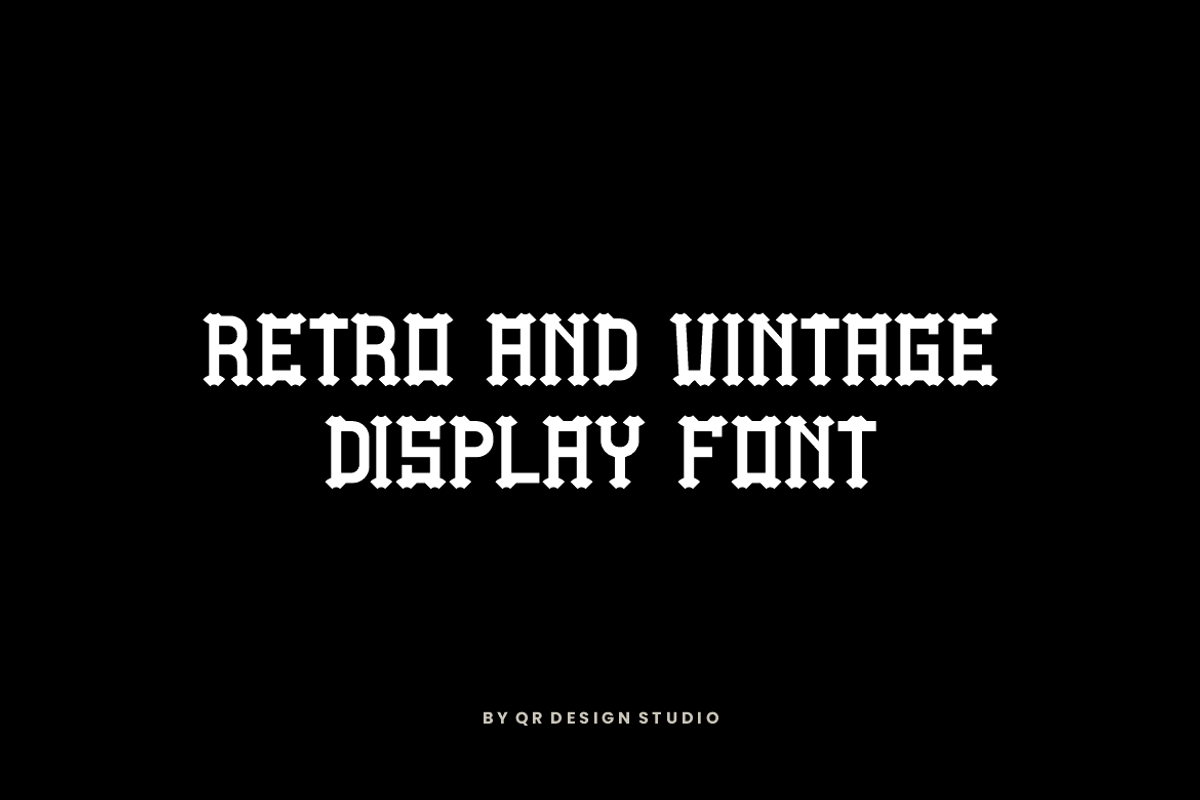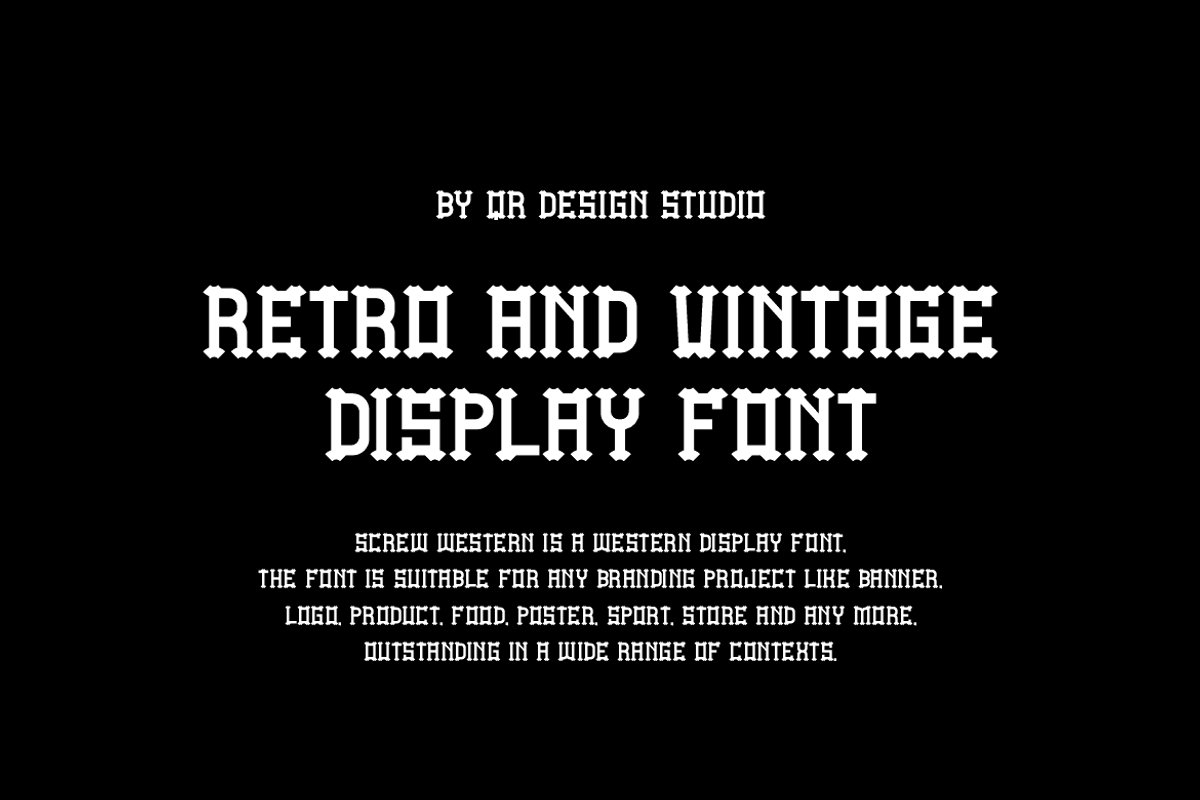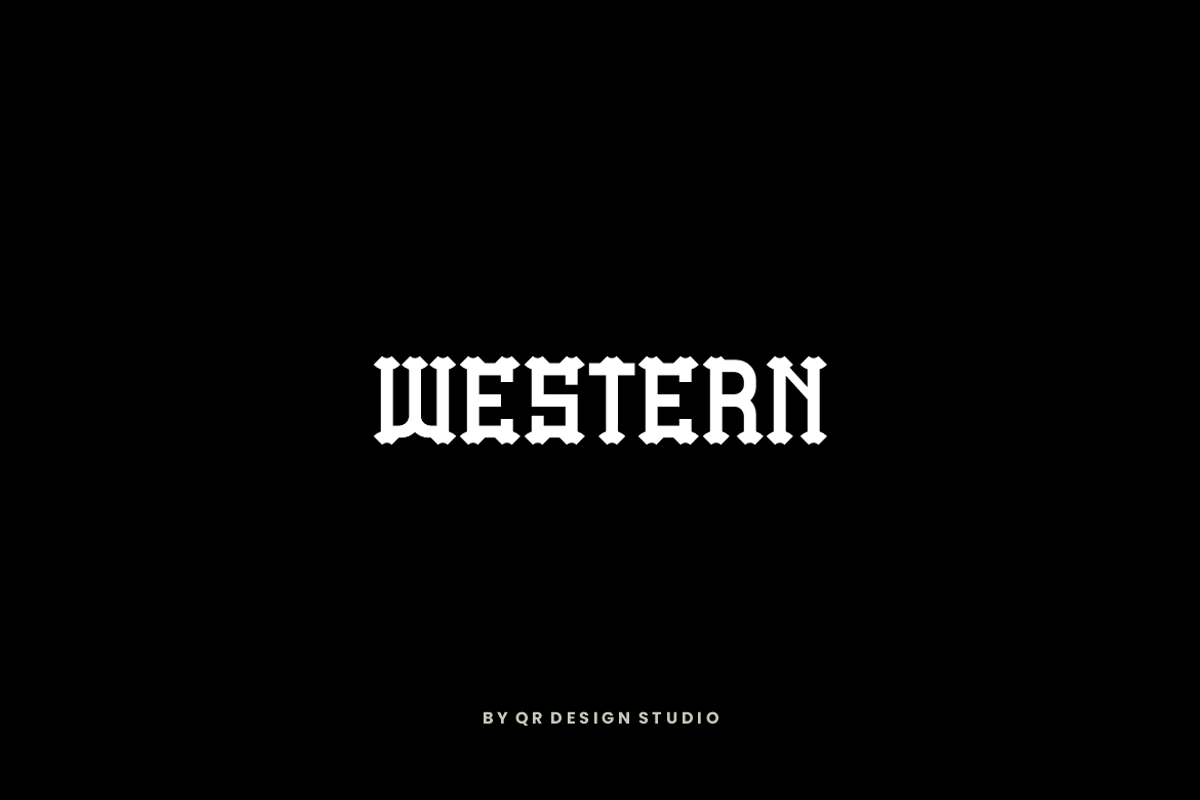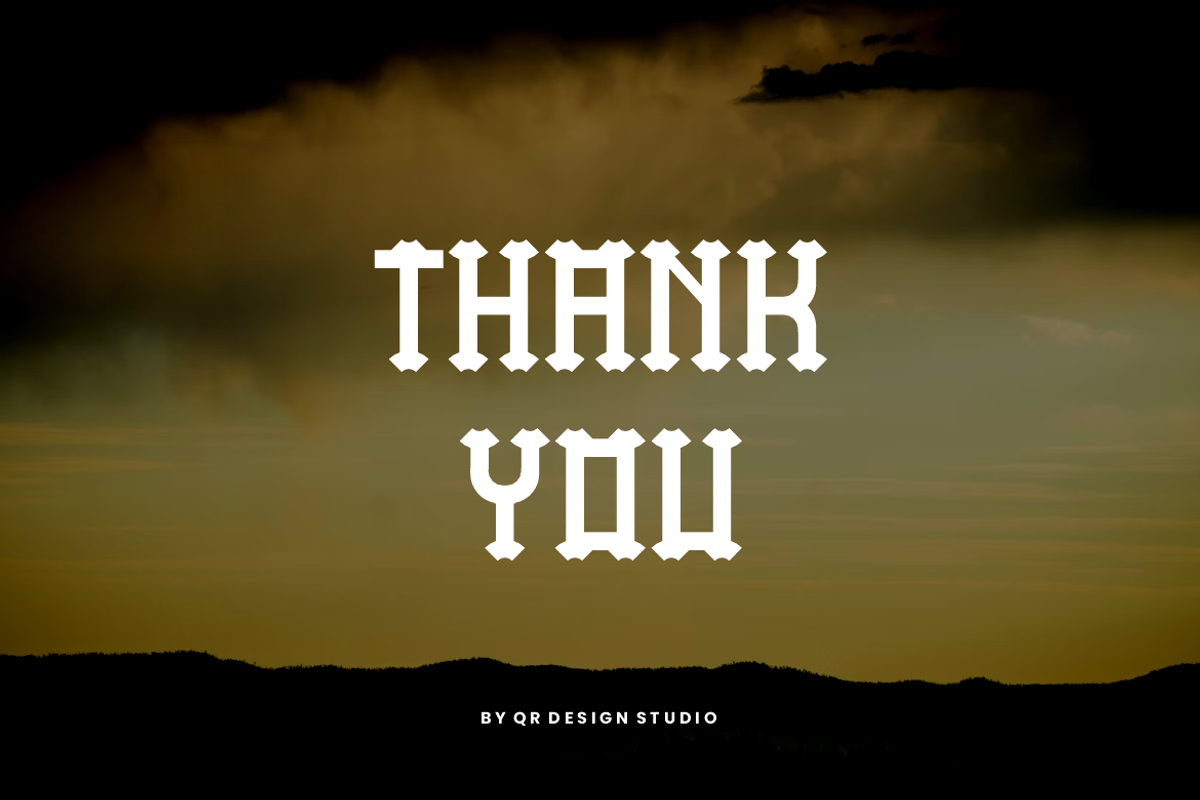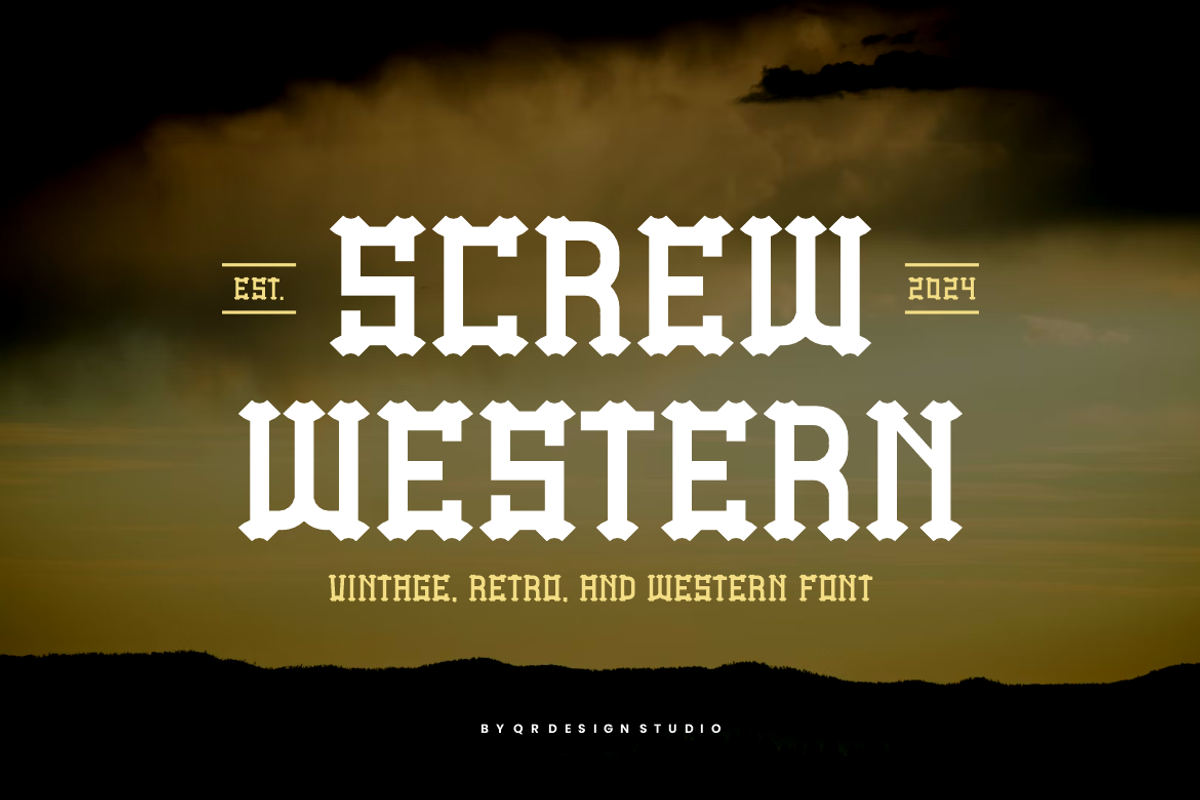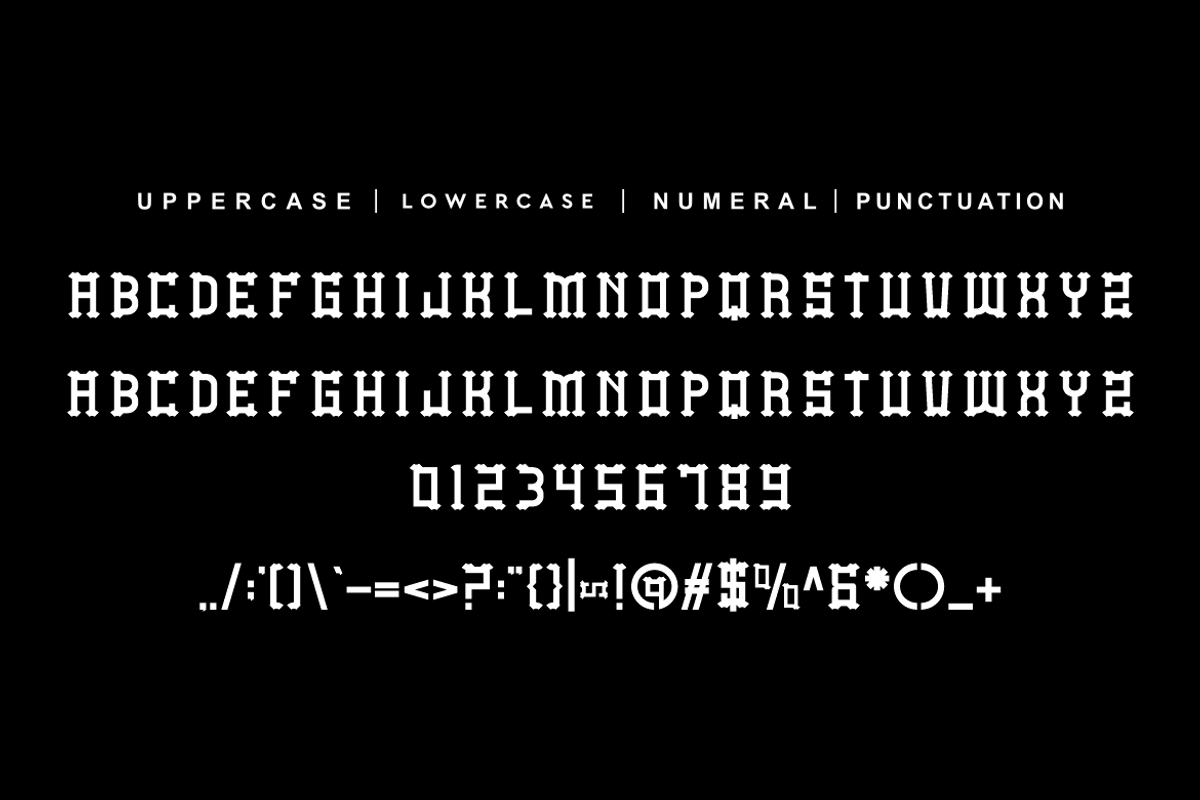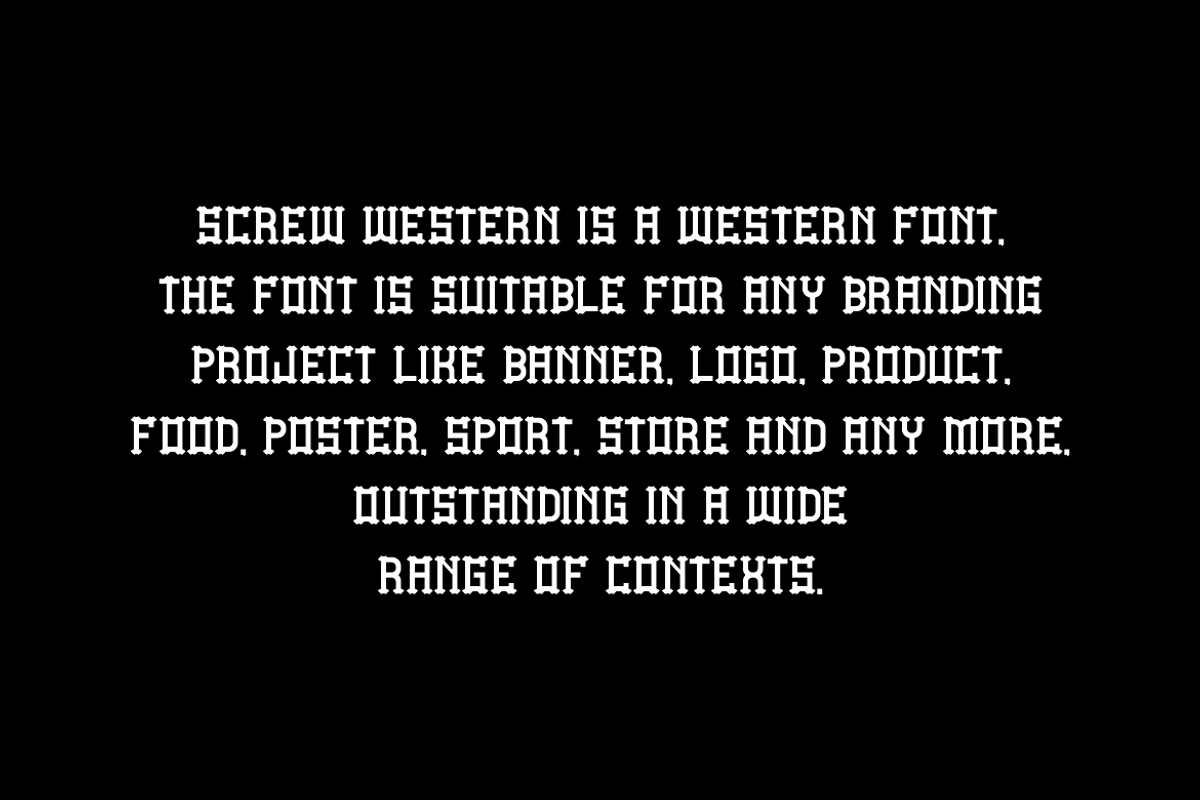
Screw Western Tropical & Retro Font
Screw Western Font is a serif and authentic display font. The font is suitable for any branding project like poster, logo, sport, and many more. Outstanding in a wide range of contexts.